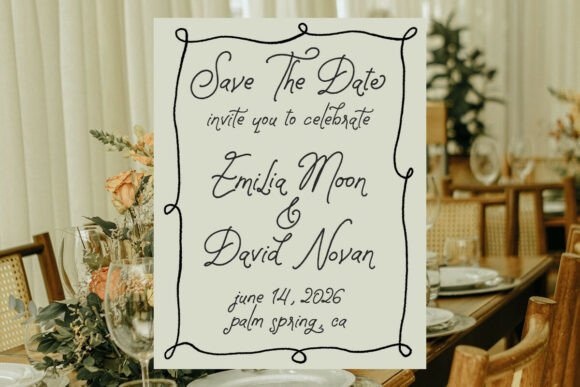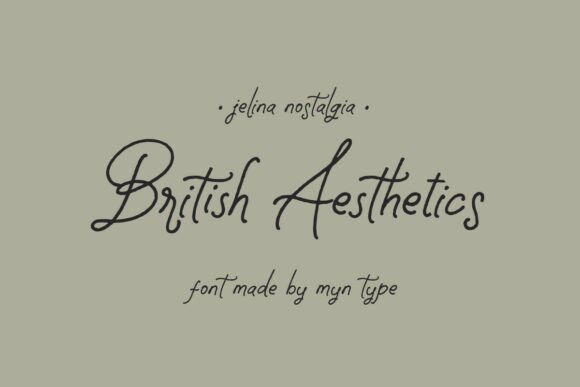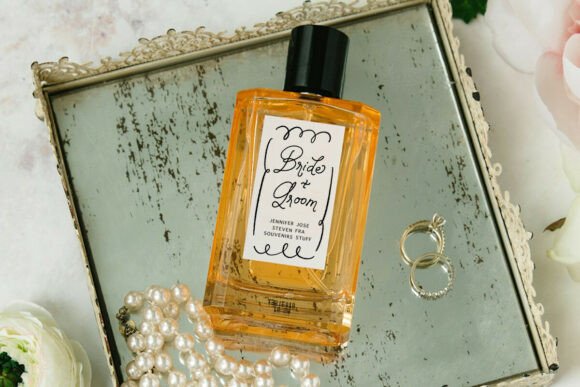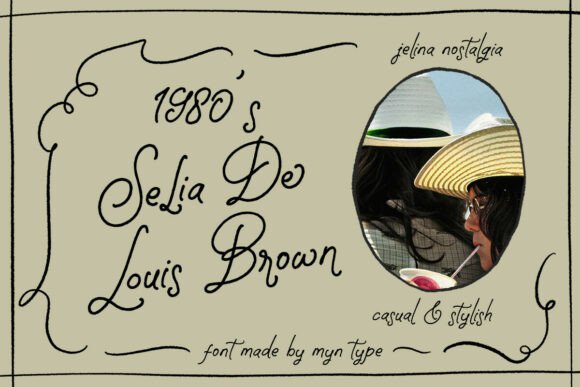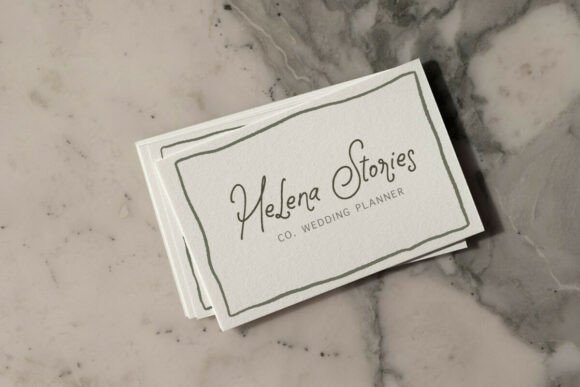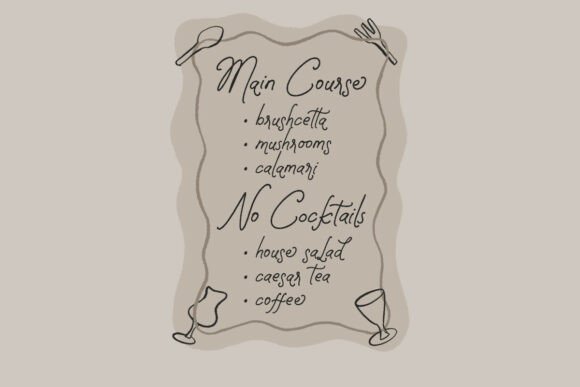
Introduction to Jelina Nostalgia Font
Have you ever stumbled upon an old photograph or a vintage postcard that instantly transports you back to a bygone era? The nostalgia that comes with it is a powerful trigger for creativity. As designers, we often seek to evoke similar emotions in our projects, and the right font can make all the difference.
That’s where the Jelina Nostalgia Font comes in – a free download that offers a high-quality design resource for creative projects. With its flowing natural hand strokes and rough, yet elegant effect, this font is a perfect addition to any design. Whether you’re working on a personal project or a commercial one, the Jelina Nostalgia Font is a valuable asset that can add a touch of classic, casual, and natural aesthetic to your work.
Thanks to its transparent background and wide range of characters, the Jelina Nostalgia Font is incredibly versatile and easy to use, making it a go-to design resource for designers of all levels.
Key Features of Jelina Nostalgia Font
- High-quality design resource suitable for creative projects, including invitations, posters, and more.
- Unique, hand-drawn style with a nostalgic feel, perfect for adding a touch of warmth and personality to your designs.
Honest Review: Jelina Nostalgia Font
I recently stumbled upon the Jelina Nostalgia Font, and I must say it’s a great addition to any design resource. As a designer, I’m always on the lookout for high-quality fonts that can elevate my creative projects. ✨
One of the standout features of this font is its unique aesthetic, which is perfect for those who want to add a touch of nostalgia to their designs. The font is available for free download, making it an excellent choice for designers who are on a budget.
- Unique and nostalgic aesthetic
- Only available in a limited range of font styles
- No support for special characters or accents
Overall, I’m impressed with the Jelina Nostalgia Font. It’s a great resource for designers who want to add a touch of nostalgia to their creative projects. With its unique aesthetic and high-quality design, it’s definitely worth checking out.
The Jelina Nostalgia Font is ideal for use in a variety of creative projects, including invitations, social media graphics, and blog posts. Its nostalgic feel makes it perfect for projects that require a retro or vintage aesthetic.